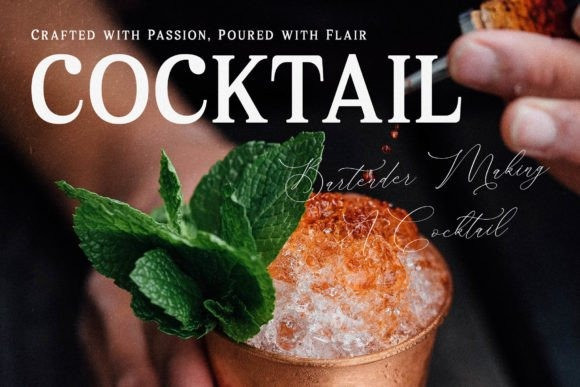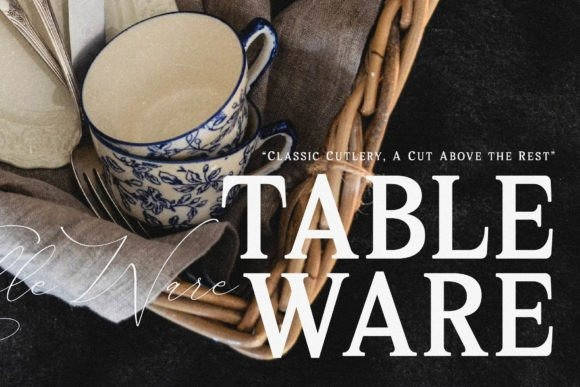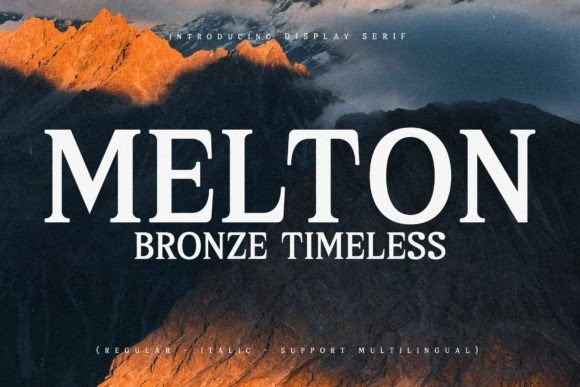
Melton Bronze Timeless Font
Melton Bronze Timeless Font is a modern and classic serif typeface that is perfect for an elegant & luxurious logo, book or movie title design, fashion brands, magazines, clothes, lettering, quotes, and so much more.